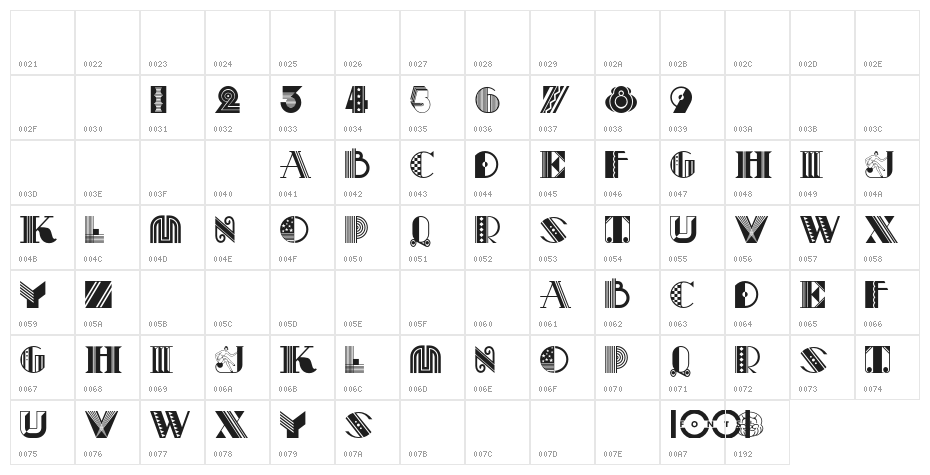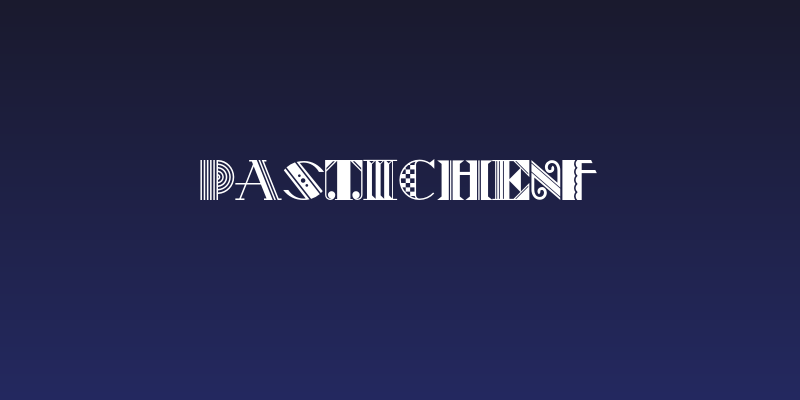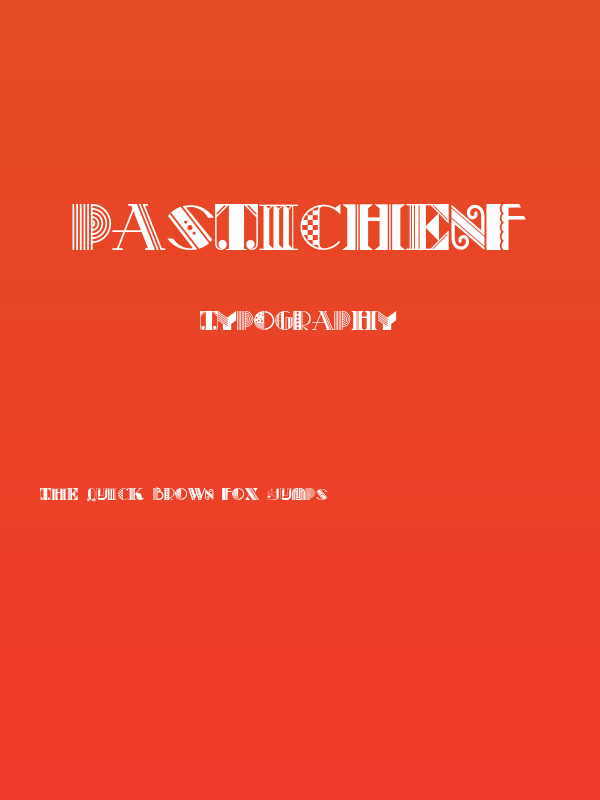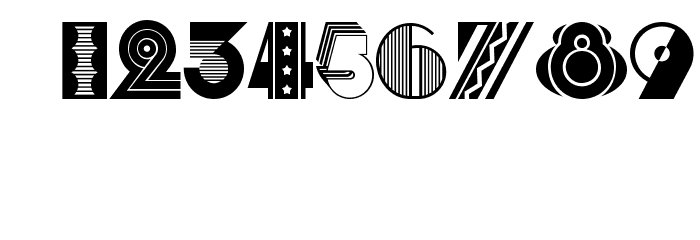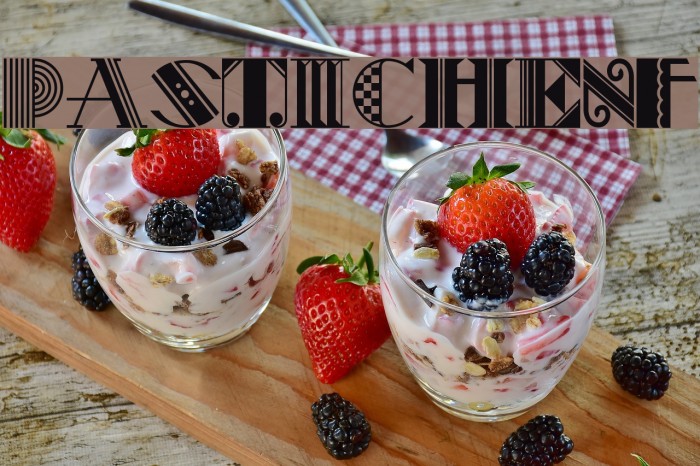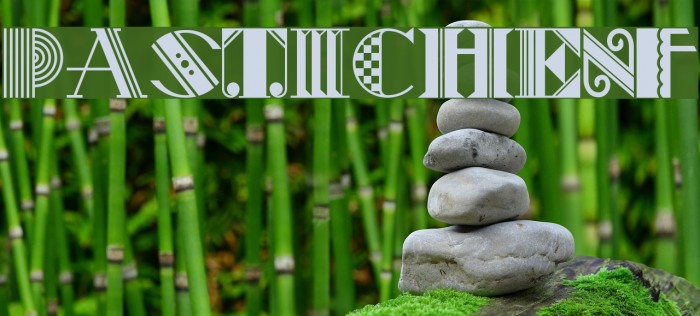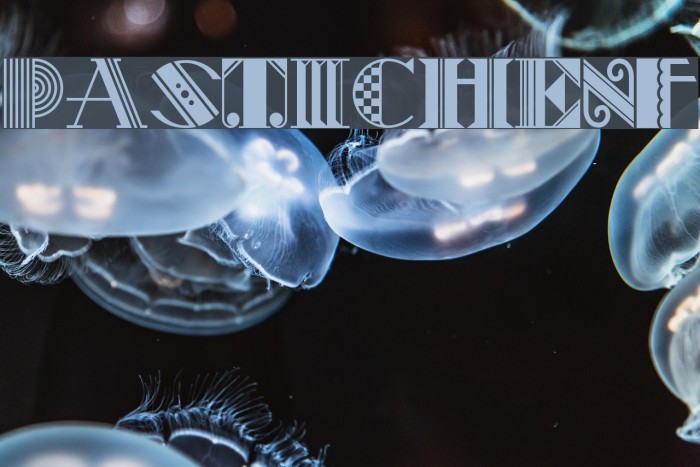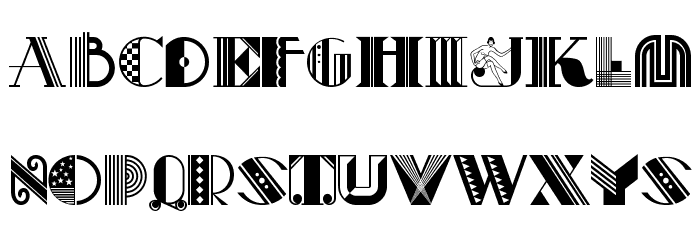
PasticheNF Font
PasticheNF Description
This font is a vibrant and eclectic display typeface that combines a variety of decorative elements within each character. Each letter is uniquely styled with patterns such as stripes, dots, and geometric shapes, creating a playful and eye-catching effect. The font features a mix of bold and intricate designs, with some characters incorporating elements like stars and swirls. This diversity in design gives the font a lively and dynamic appearance, making it ideal for projects that require a strong visual impact. The characters are well-defined and maintain a consistent height, ensuring readability despite their decorative nature.